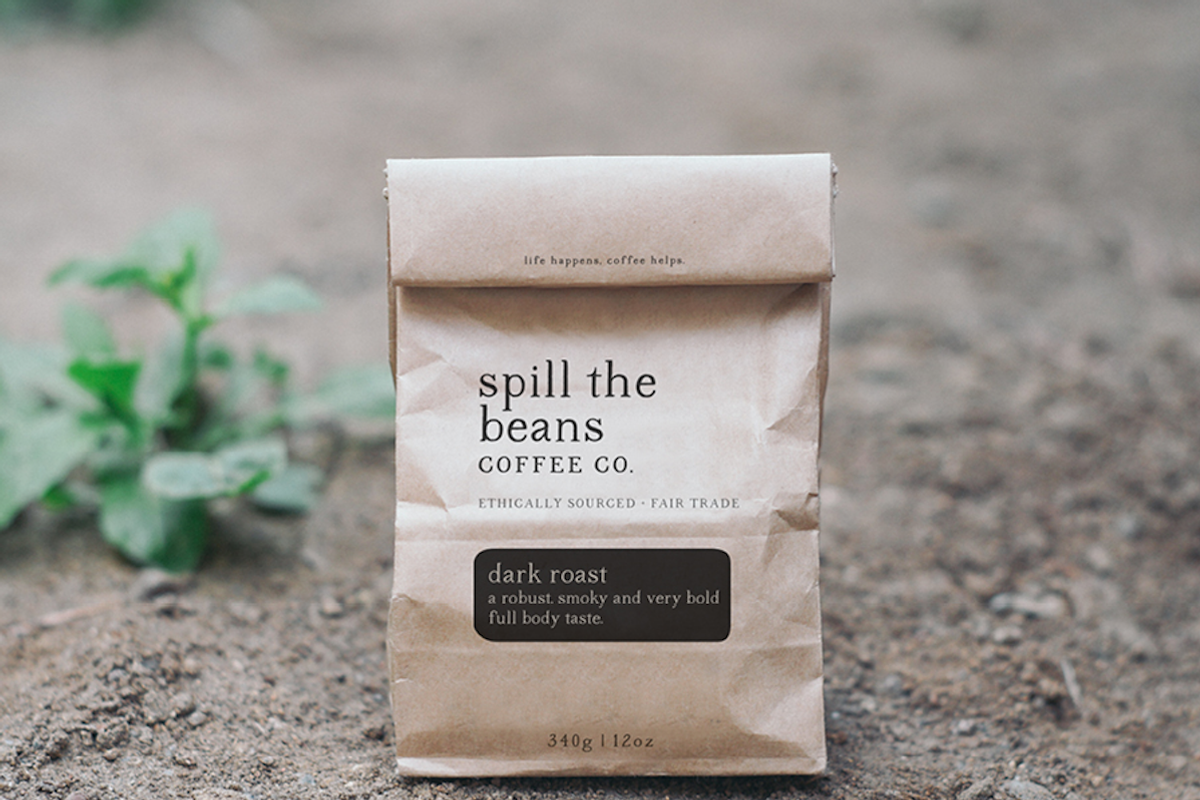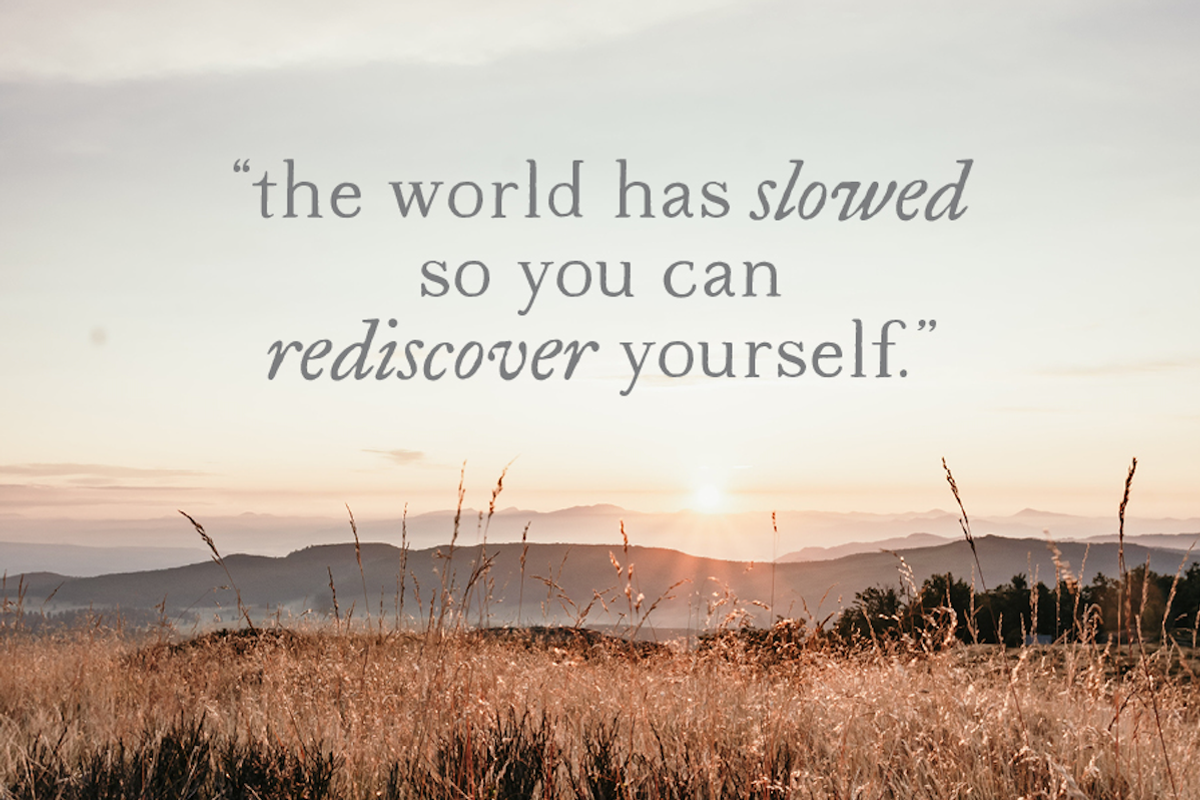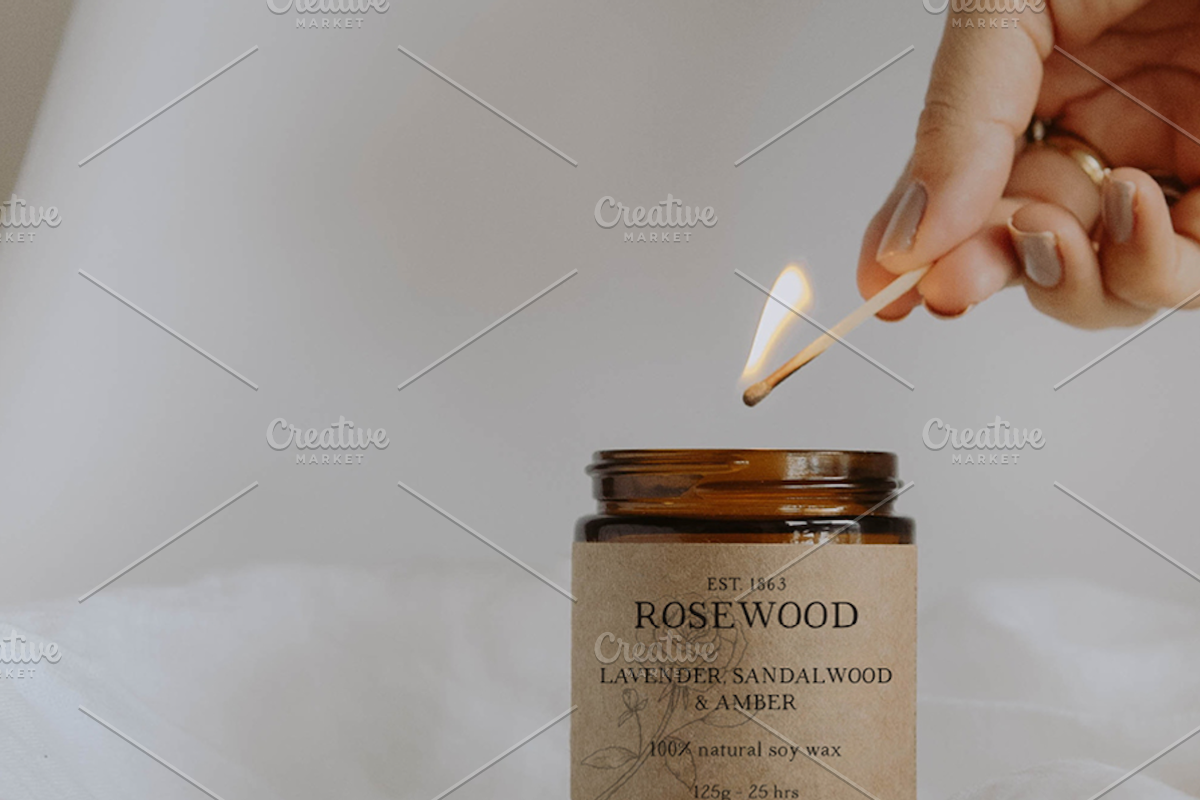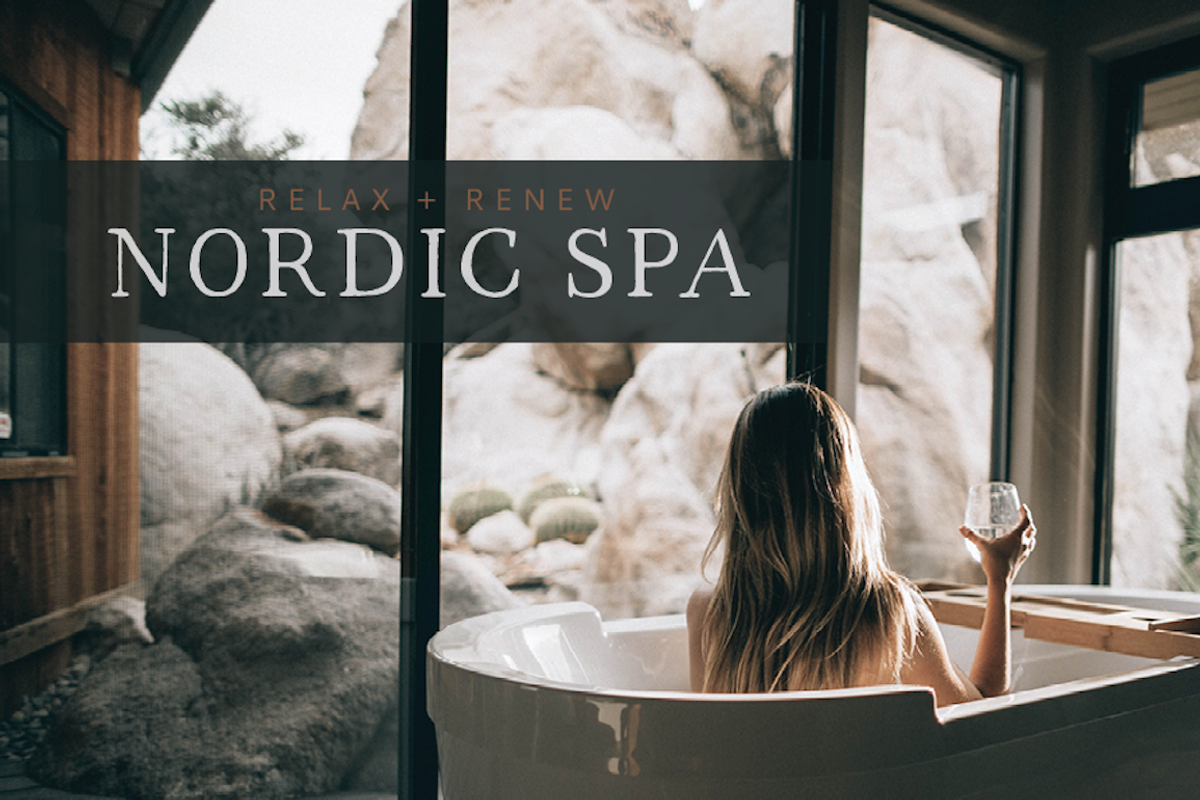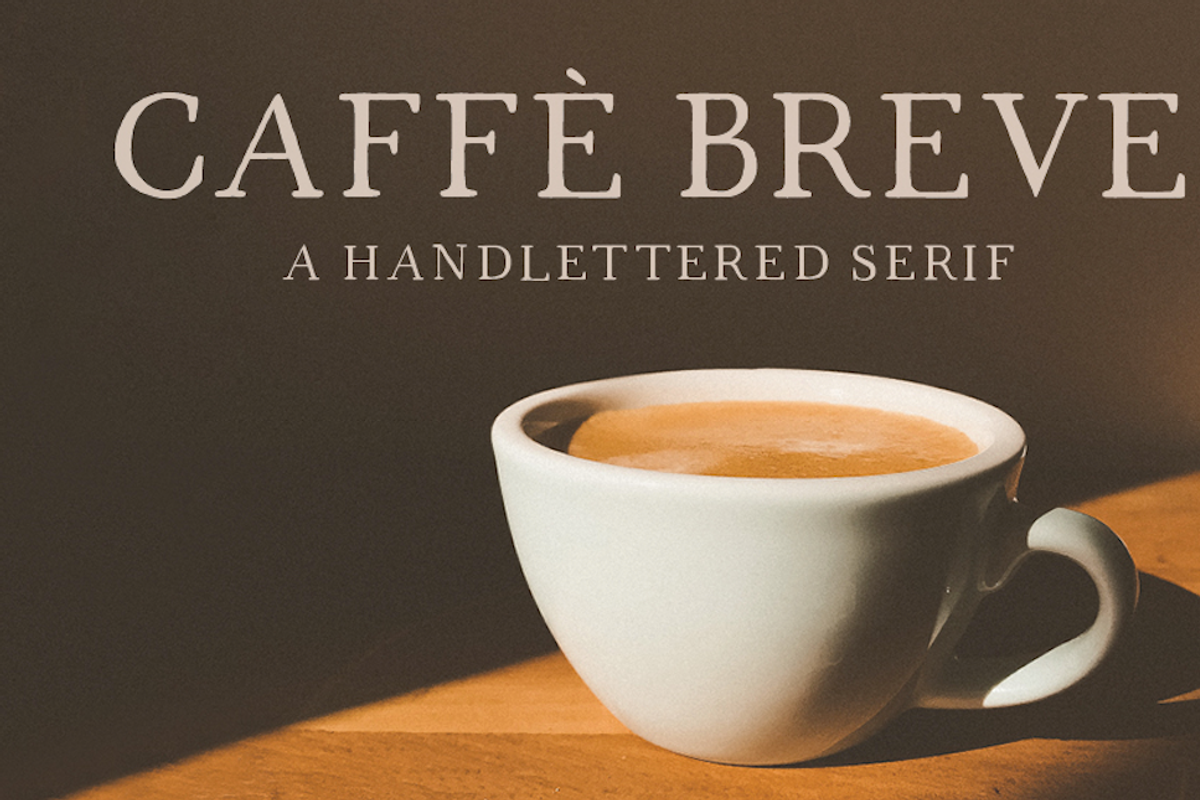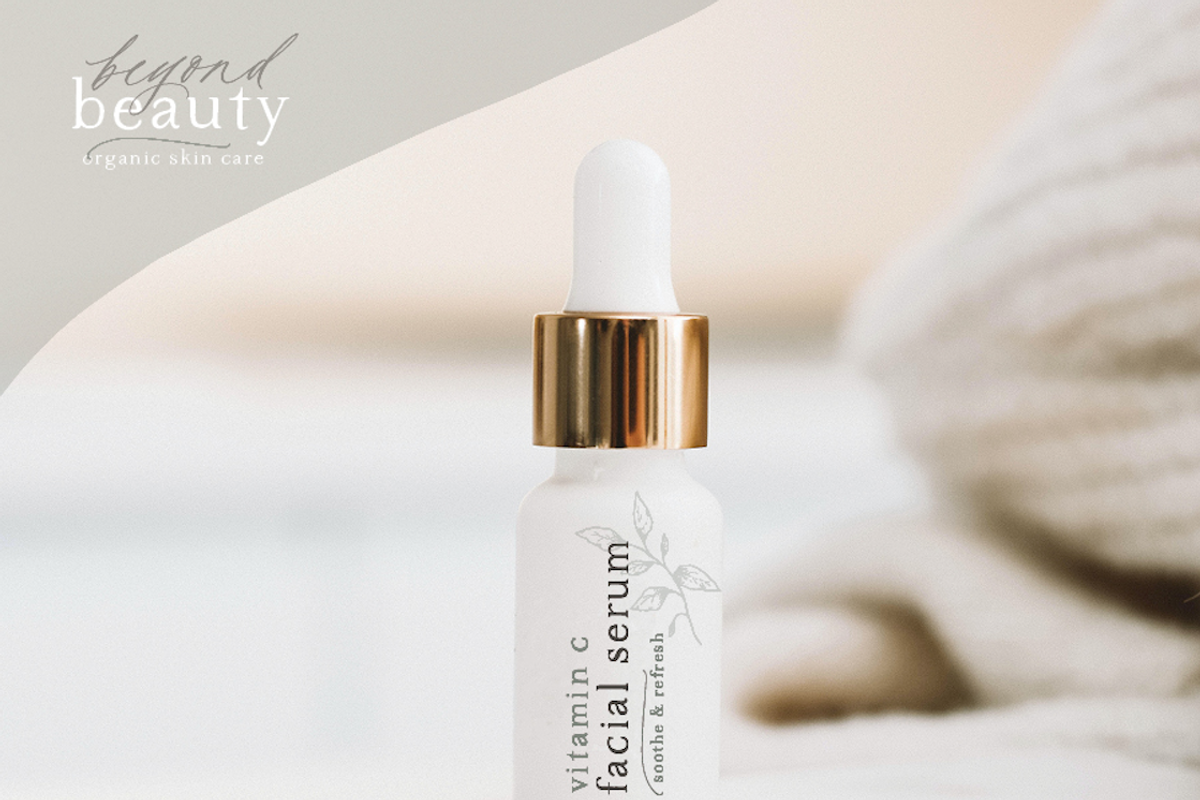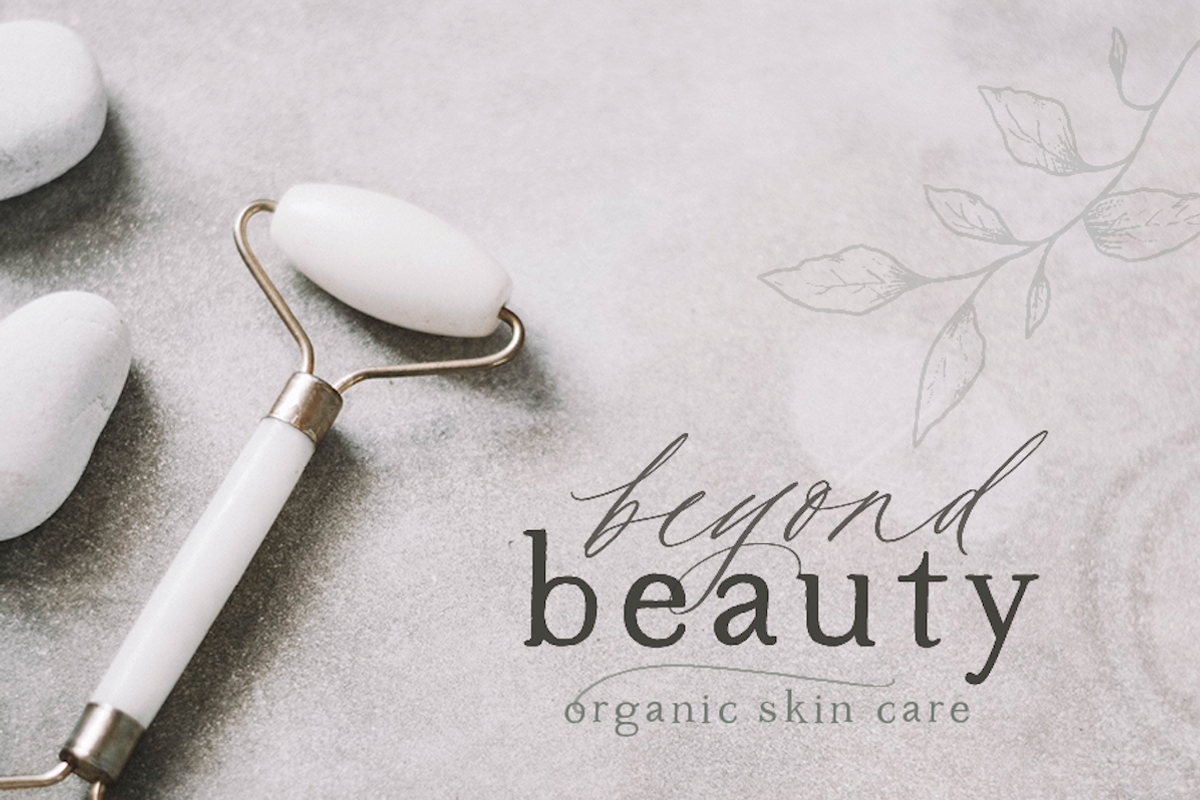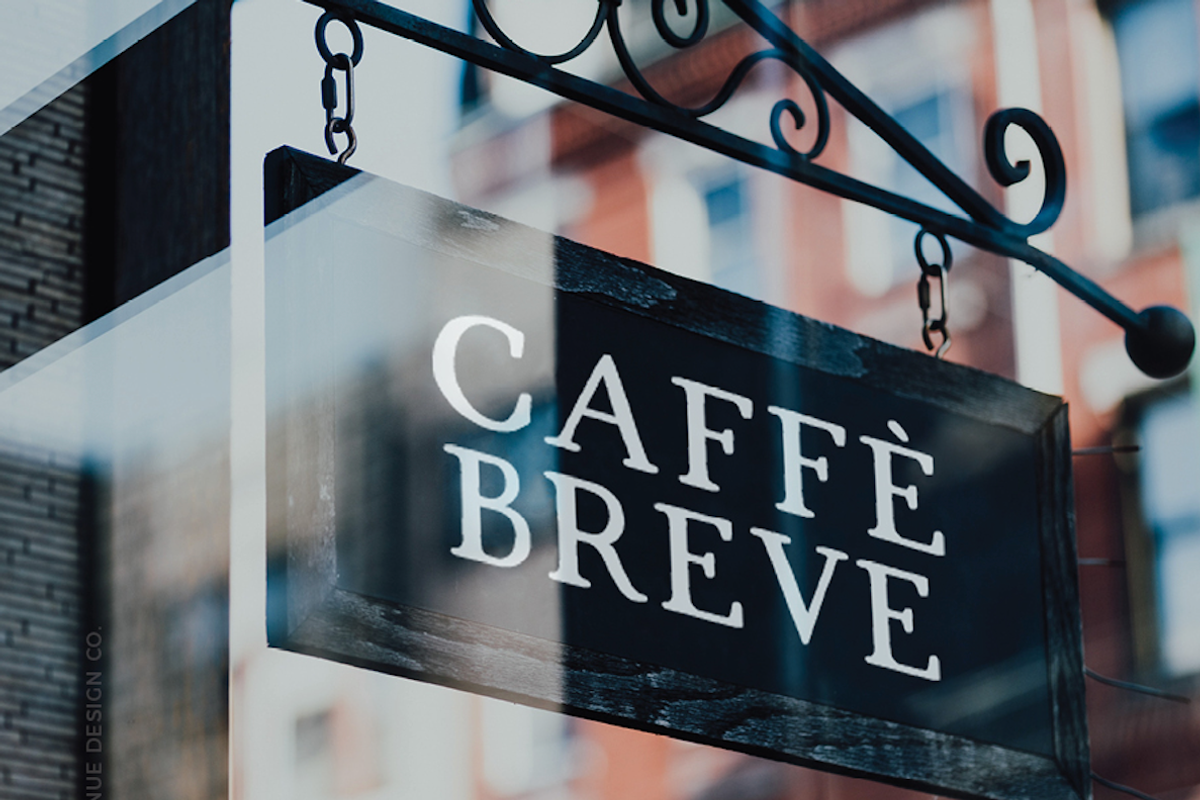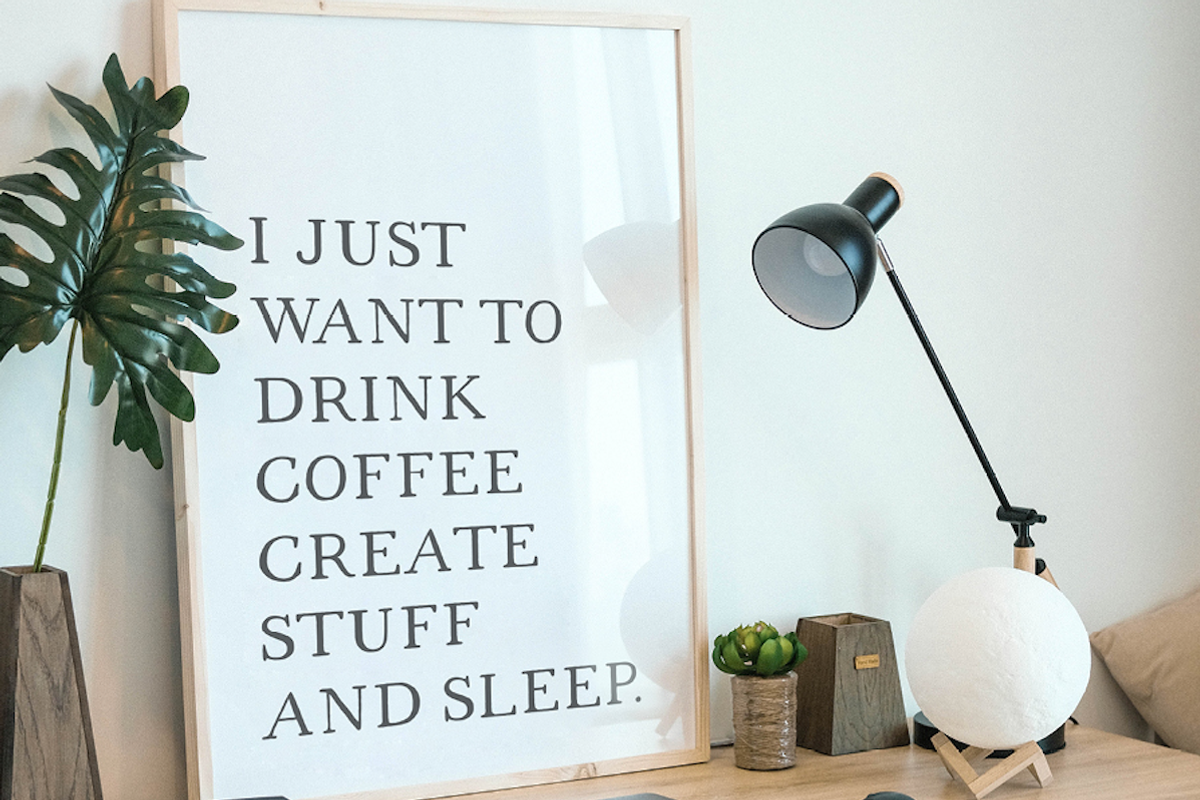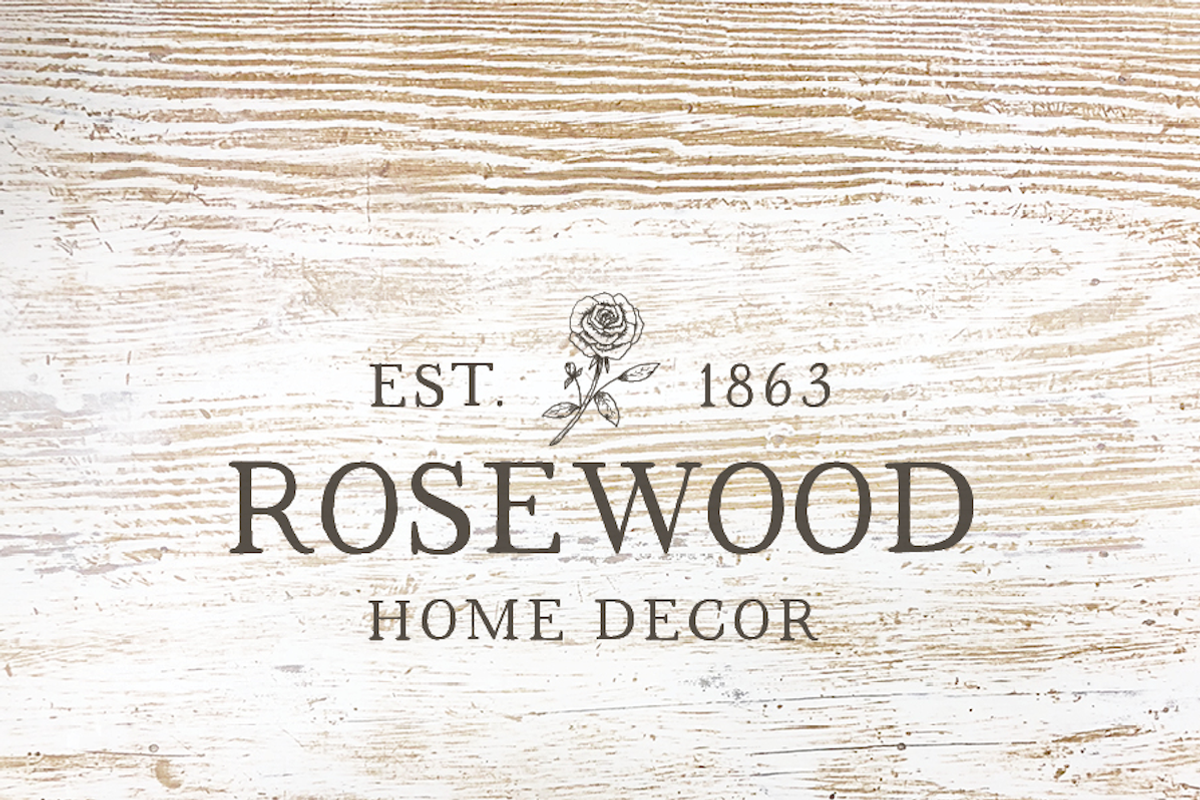
Caffè Breve - Handlettered Serif
Introducing Caffè Breve (kah•fay breh•vay) - a hand lettered serif font by Courtney Rose Design.
Inspired by hand-lettered signage in coffee houses and chalkboard menus with their rustic hand-drawn look. Caffè Breve is a modern serif, both clean and refined yet with an organic feel and added personality with hand-drawn edges.
This font is perfect for logos, branding, social media graphics, printed marketing materials, signage, packaging, stationery, and products.
The inspiration behind the font: I previously created hand-lettered wood signs and most ended up with me combining my flowy script with a clean serif - it truly is a timeless font combination. With enough practice, I was able to freehand the uppercase serif I wanted to pair my script lettering with and struggled to find a similar digitized font out there for brand designs. They are either vectorized with harsh points, too textured or didn't have enough imperfections to look perfectly imperfect. With this font, my goal was to create a timeless serif with a hint of personality perfect for logos, signage and pairing with script typefaces, while keeping the vector outlines smooth for cutting machines or signage at a larger scale.